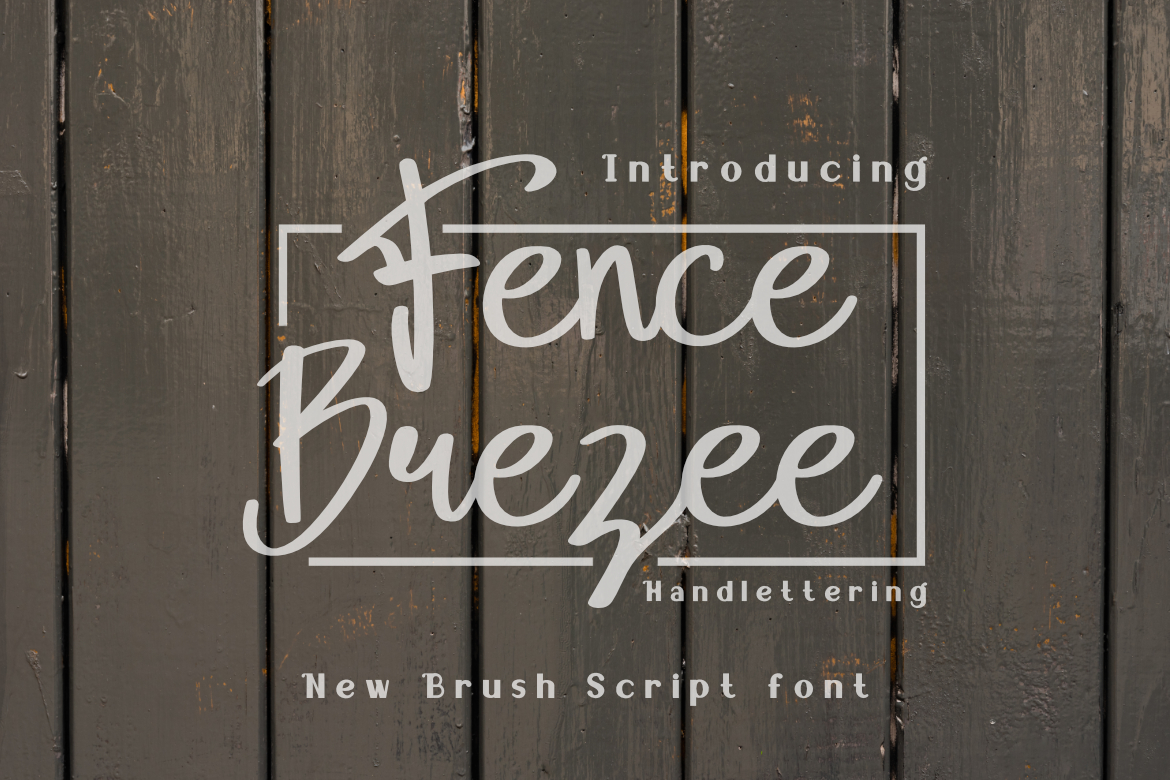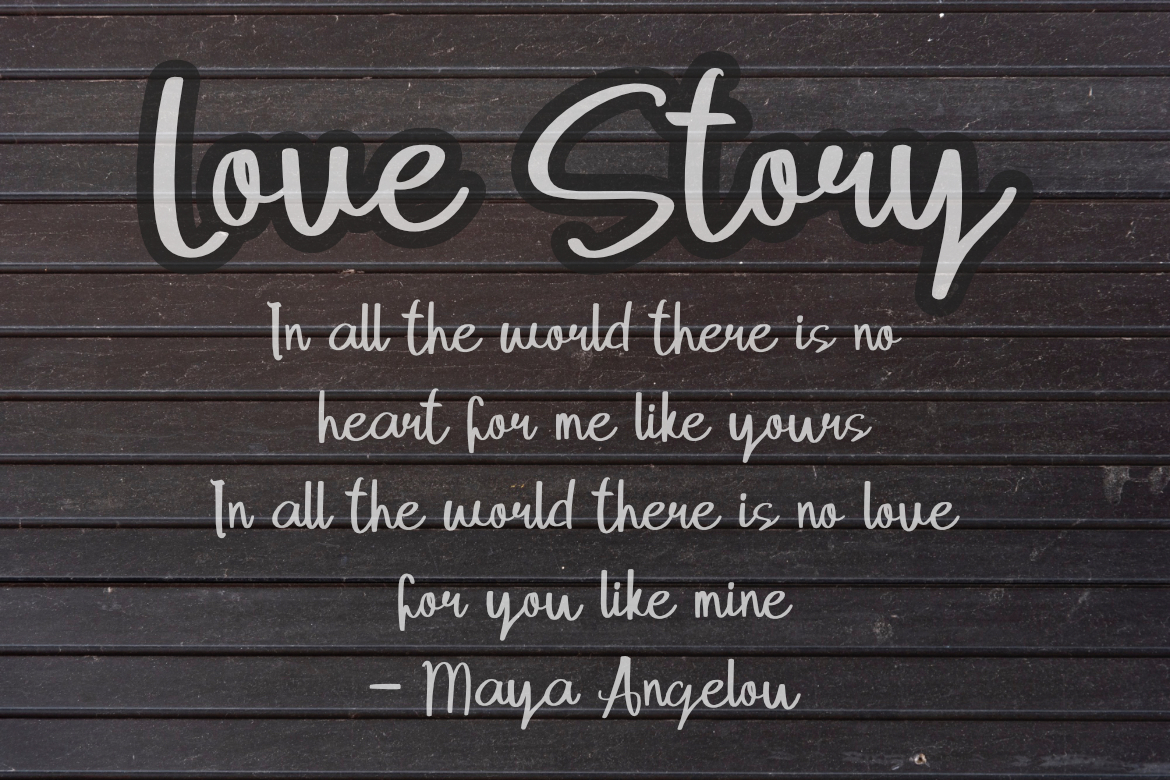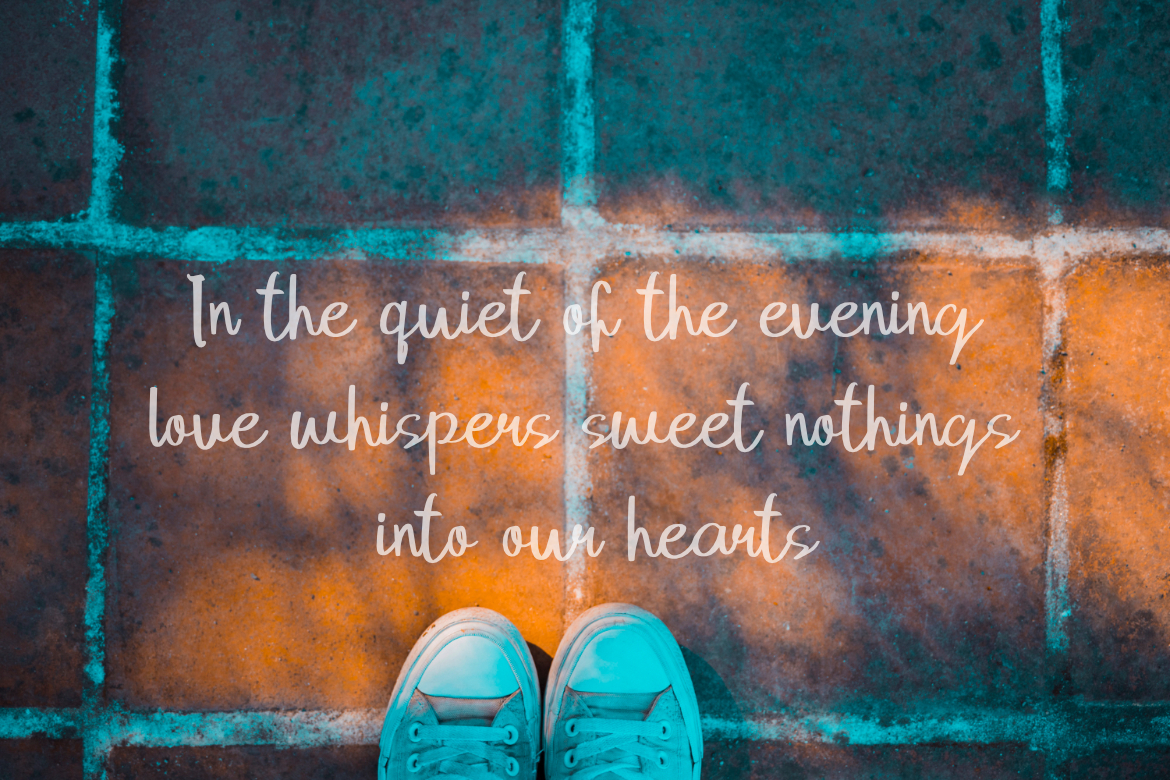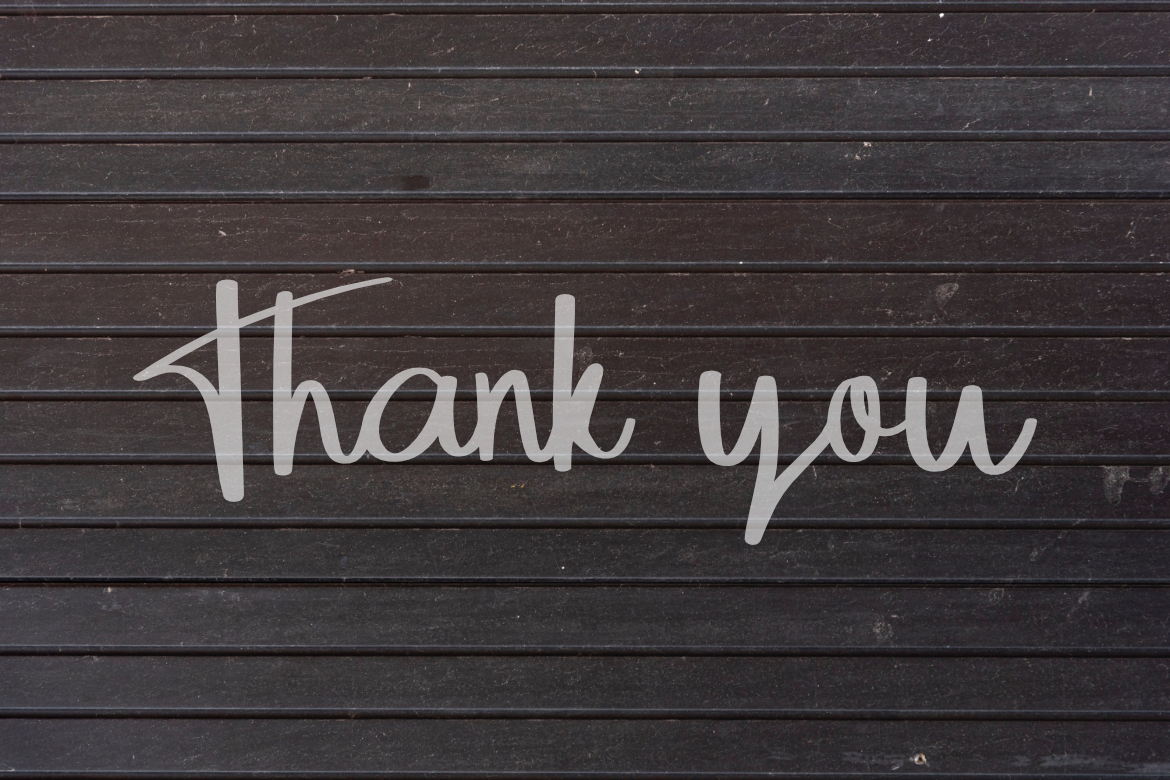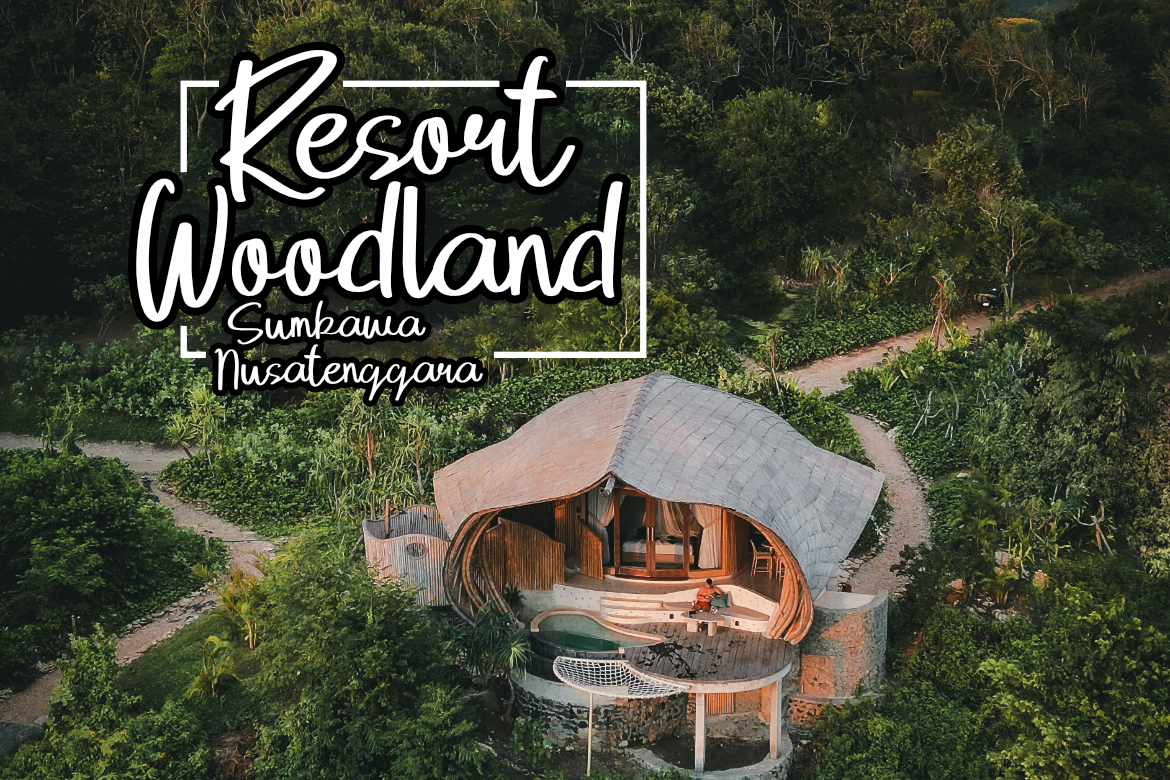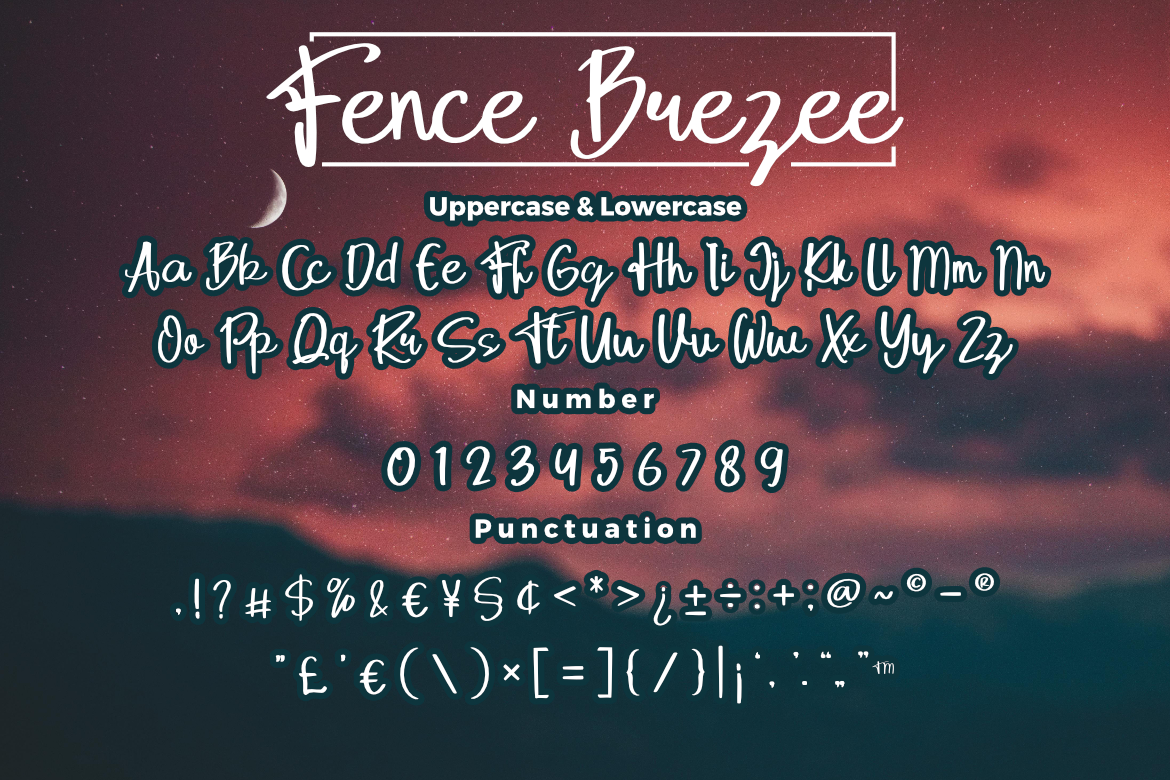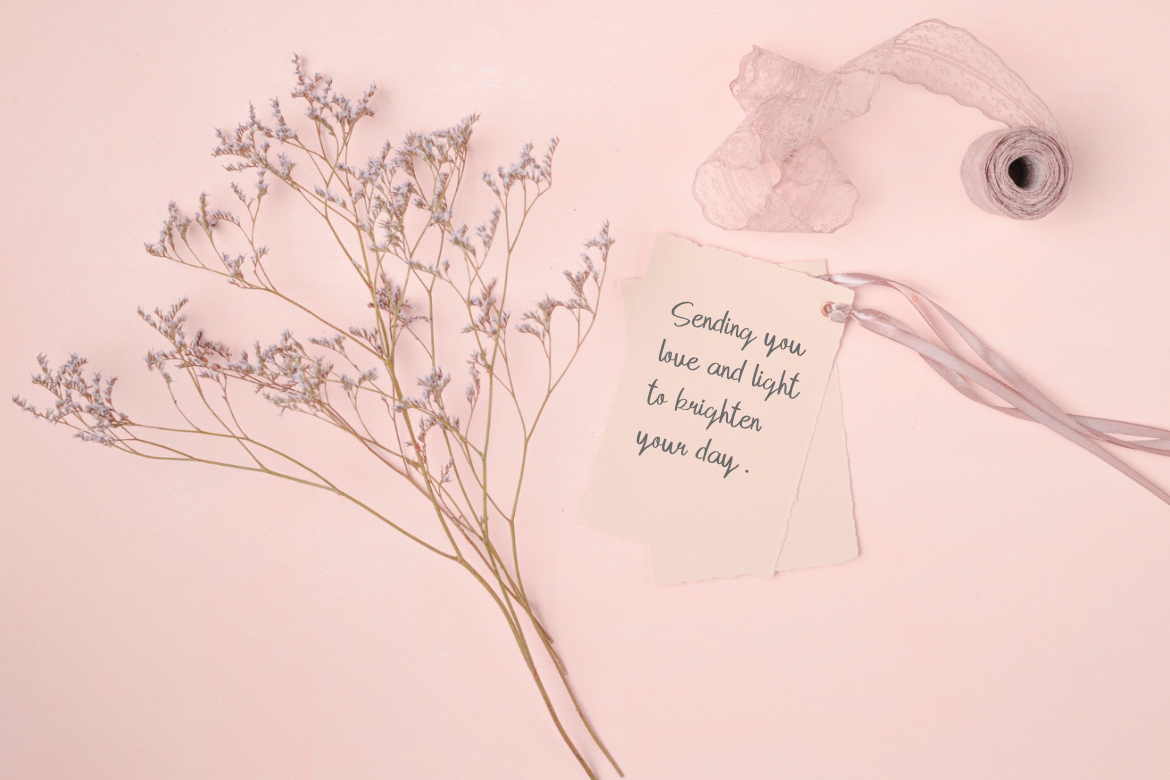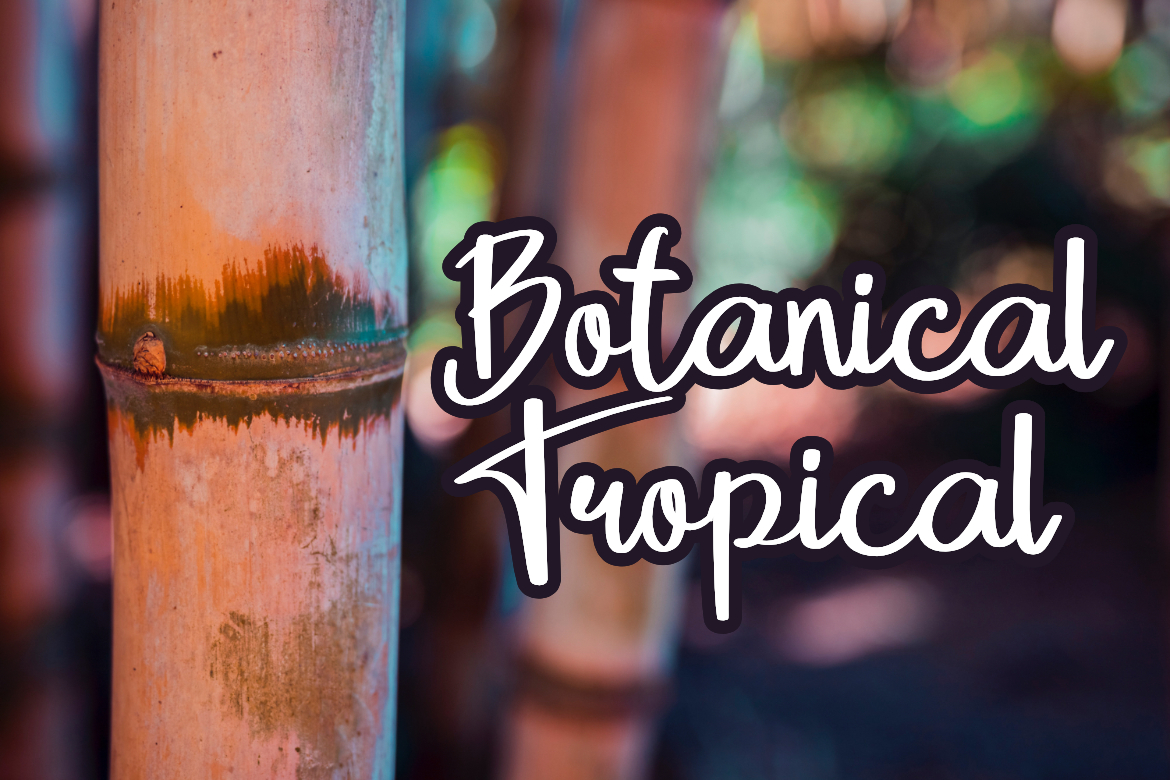
Fence Brezee - Handlettering Script Font
**Fence Brezee Handlettering Font**, This font is made with a high premium quality level which you can use as flyers, quotes, posters, banners, packaging, merchandise, logotypes and much more.
**FEATURES :**
* Uppercase
* Lowercase
* Number
* Punctuation
* Multilingual